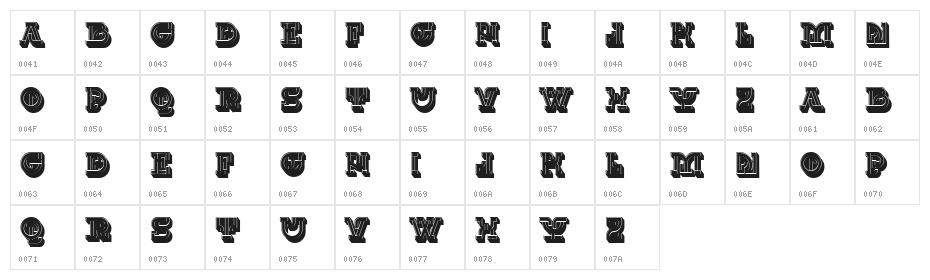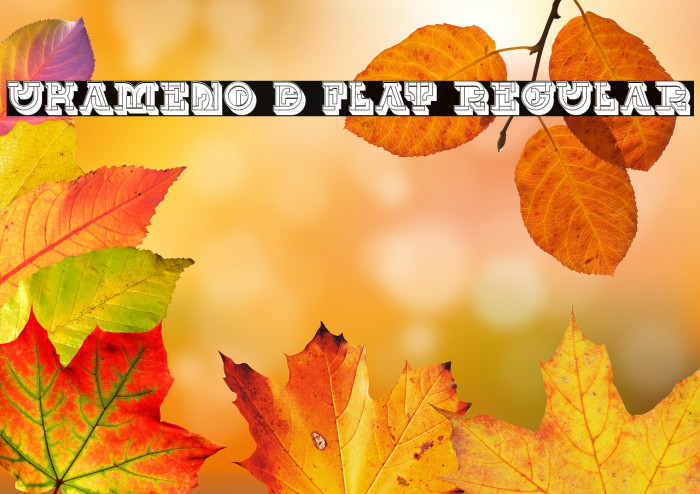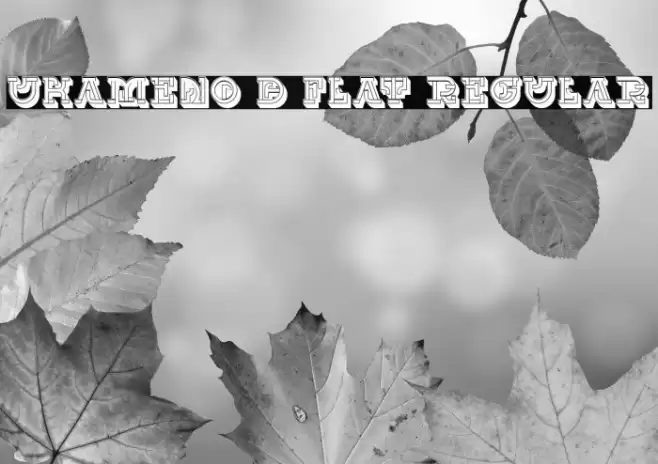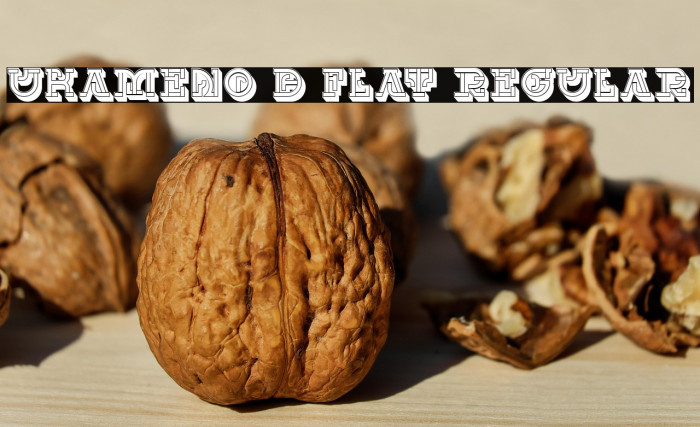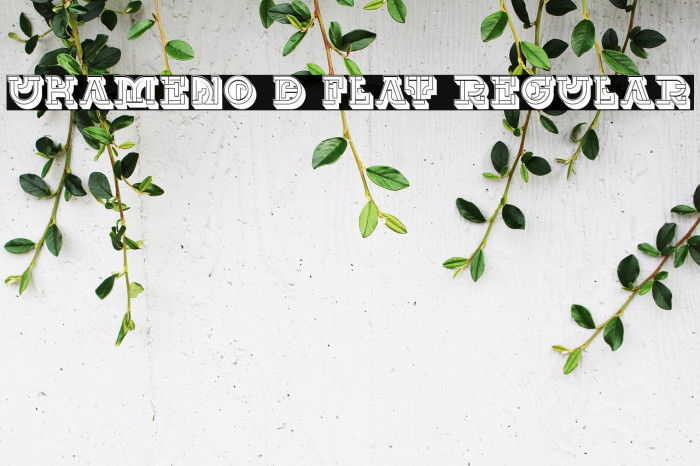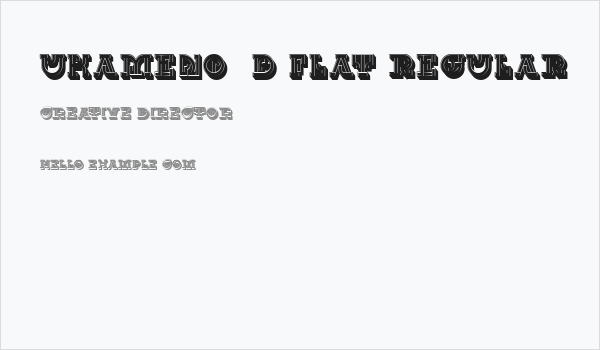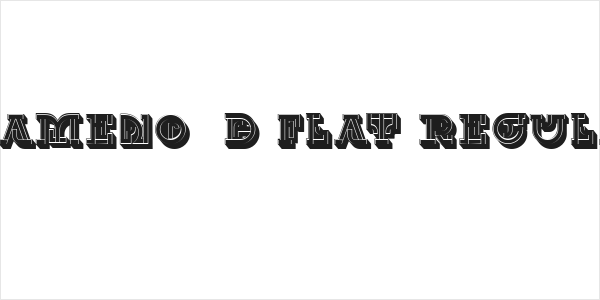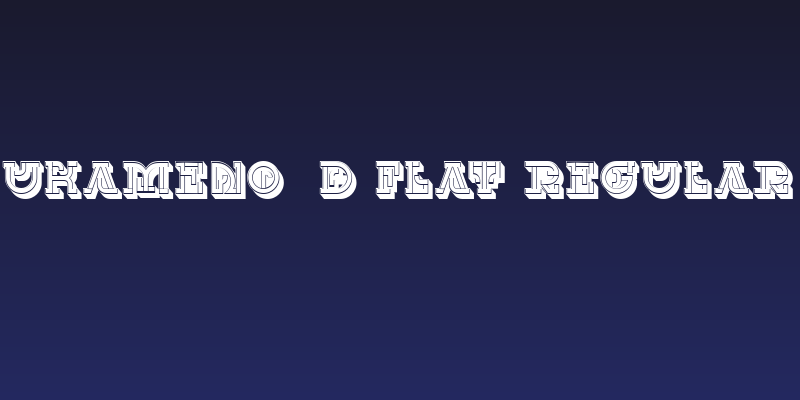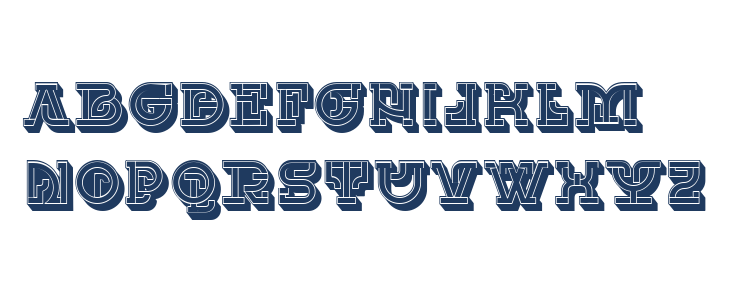
UKAMENO 3D Flat Regular Font
UKAMENO 3D Flat Regular Description
This font features a bold, three-dimensional appearance with a flat, geometric style. The characters are designed with a strong emphasis on depth, achieved through the use of shadowing and layered outlines. The uppercase letters exhibit a robust and dynamic presence, making them ideal for attention-grabbing designs. The font's structure is consistent, with each letter maintaining a uniform width and height, contributing to a cohesive visual impact. The intricate detailing within each character adds a decorative flair, while the overall design remains clean and modern.
| Proposed Projects | Ideal for posters, headlines, logos, and any design requiring a bold, eye-catching typeface. |